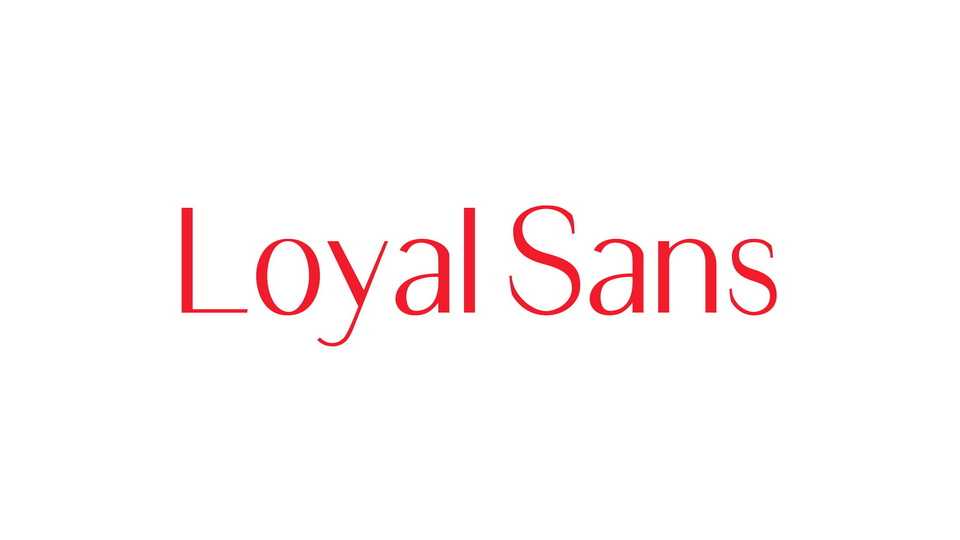
Download Loyal Sans font, a modern and versatile sans-serif typeface that skillfully blends contemporary design with striking contrasts. Its harmonious balance of thick and thin strokes creates a dynamic and visually appealing font suitable for a wide range of applications.
Designer: Emmet Blanchette